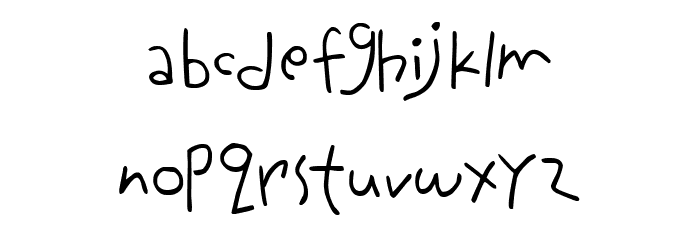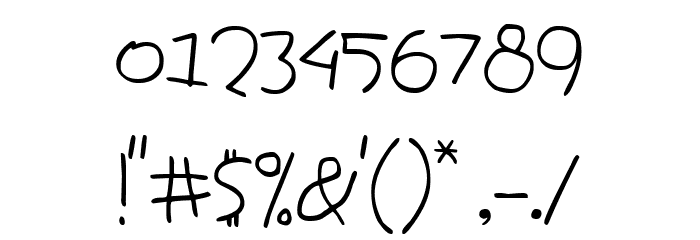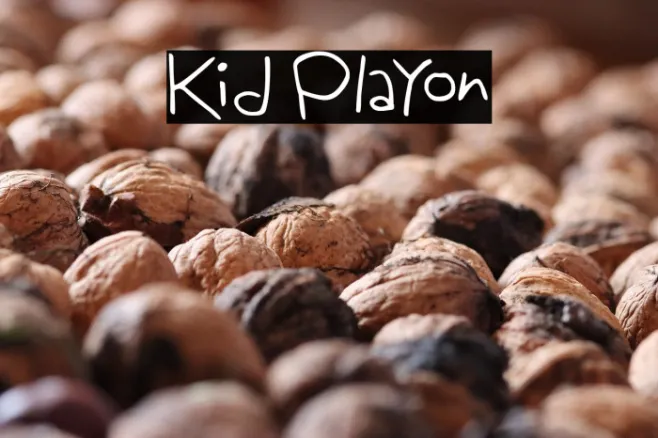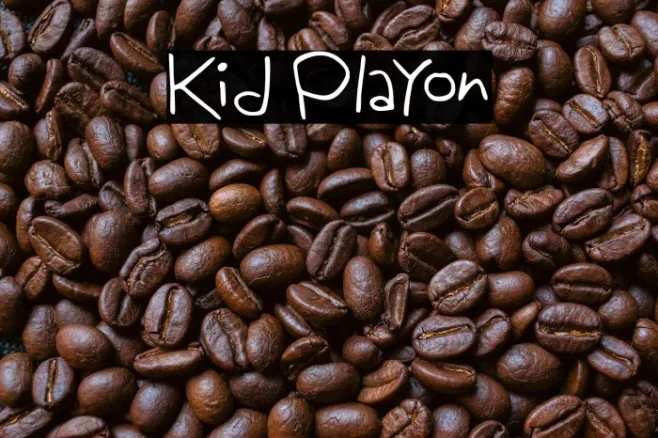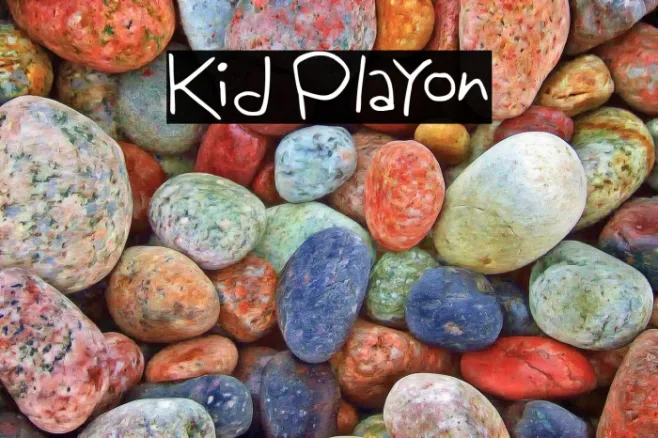
Kid Playon Font
This playful and whimsical font features a hand-drawn style that mimics the carefree and spontaneous nature of children's handwriting. The letters are irregular and slightly tilted, giving it a lively and informal appearance. The strokes are uneven, adding to the charm and authenticity of the handwritten effect. The font includes a full set of uppercase and lowercase letters, numbers, and a variety of special characters, making it versatile for different uses. Its unique style is perfect for projects that require a personal and approachable touch.
A playful, hand-drawn font with a whimsical, childlike style.
- Proposed Projects: Ideal for children's books, educational materials, playful branding, and creative invitations.
- Overall Style: Playful
- Use Case: Headlines, Logos, Creative projects